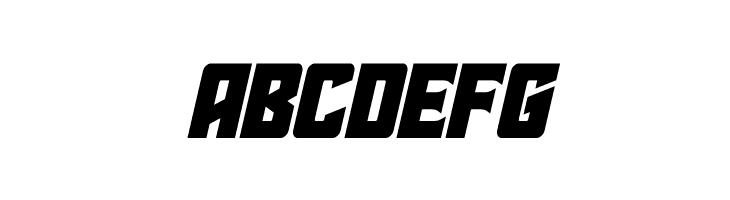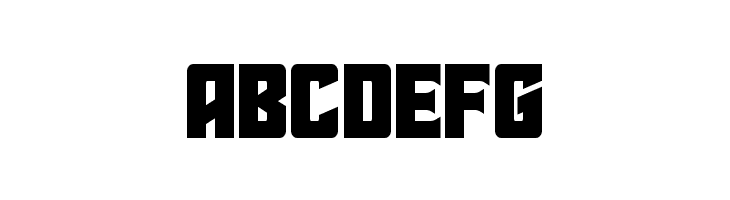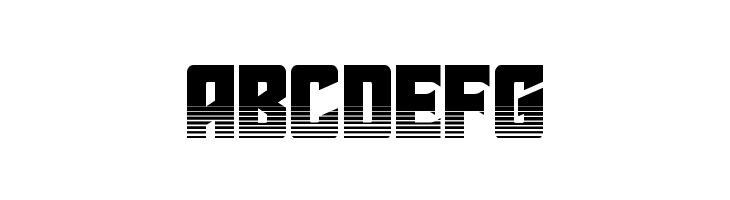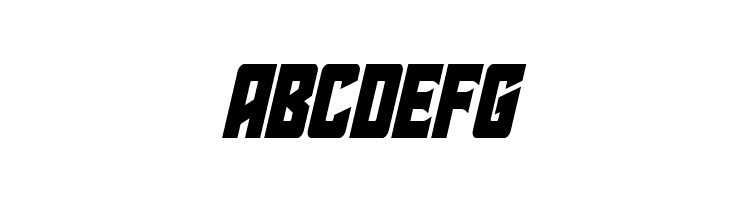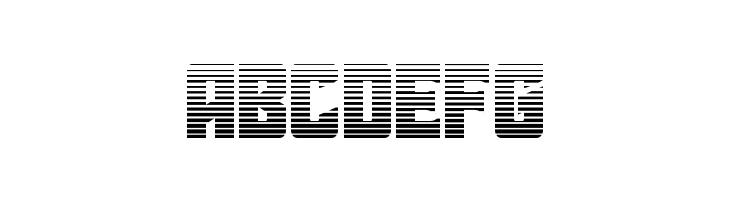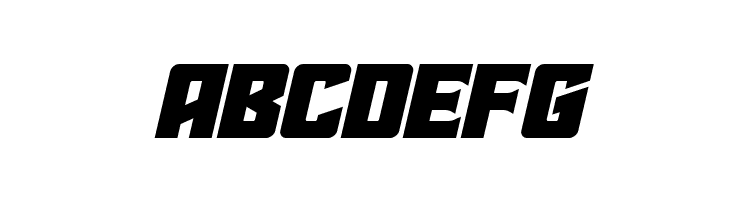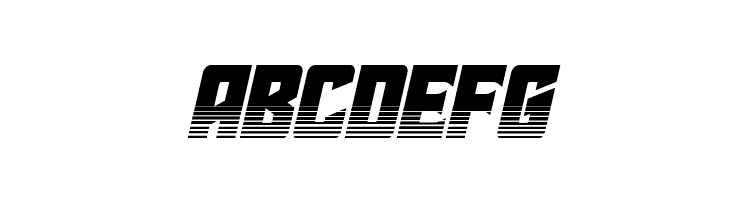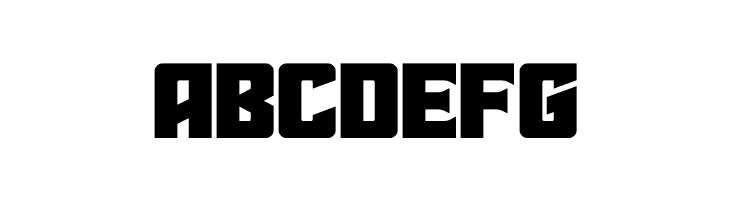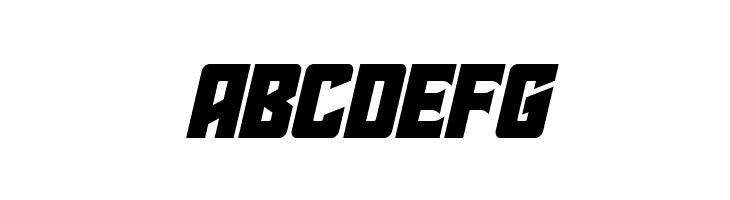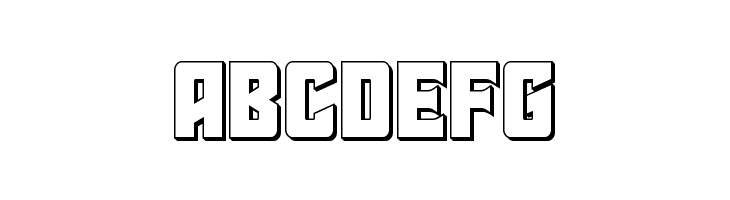
• Star Guard
A bold, geometric font with a futuristic and sci-fi inspired design.
• Star Guard
A bold, geometric font with a futuristic and sci-fi aesthetic.
• Star Guard 3D
A bold, 3D geometric font with a futuristic style.
• Star Guard 3D Italic
A bold, 3D italic font with a futuristic and dynamic style.
• Star Guard Condensed
A bold, condensed font with geometric shapes and sharp angles.
• Star Guard Condensed
A bold, condensed font with a geometric, futuristic style.
• Star Guard Condensed Italic
A bold, condensed, and italic font with a modern, dynamic style.
• Star Guard Condensed Italic
Bold, condensed, and italic with a modern, dynamic style.
• Star Guard Drop-Case
A bold, geometric font with sharp angles and thick strokes.
• Star Guard Drop-Case
• Star Guard Drop-Case Italic
A bold, italic, and angular font with a futuristic and energetic style.
• Star Guard Drop-Case Italic